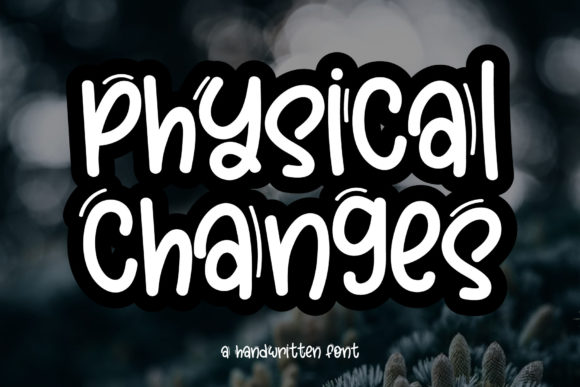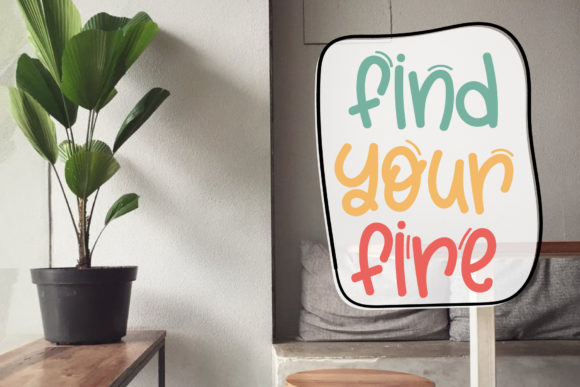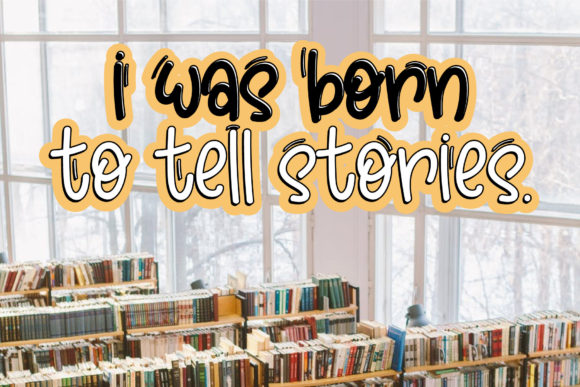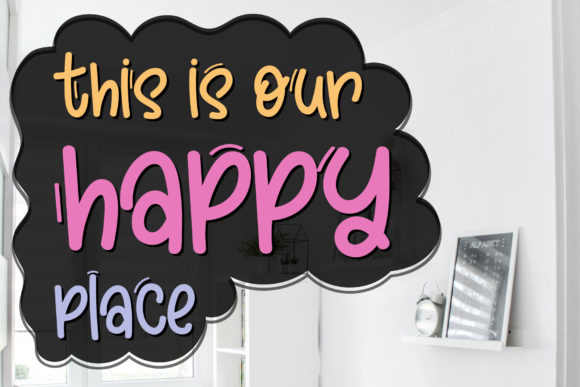
Physical Changes Font
About Physical Changes Font
Physical Changes is a quirky and chic handwritten font. Whether you are using it for cartoon-related designs, children games, quotes, titles, brand names, book covers, posters, or just any creation that requires a touch of joy, this font is a great choice.